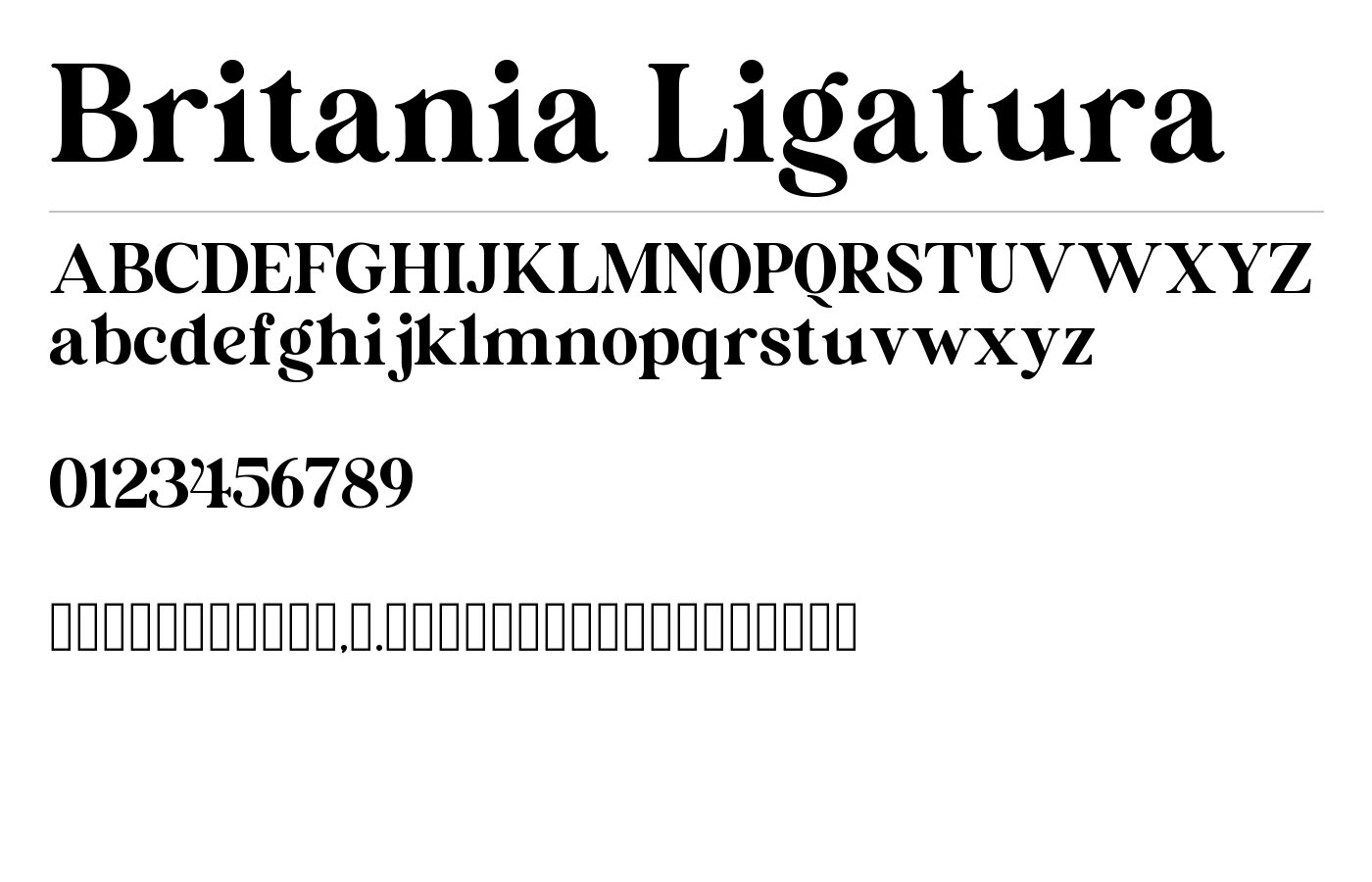
Britania Ligatura is a bold serif font with a classic and elegant feel, featuring strong contrasts between thick and thin strokes and distinctive bracketed serifs. Its traditional letterforms, including double-story a and g, along with unique ligature details, give it a refined yet robust character ideal for sophisticated branding, editorial headlines, and luxury packaging. This font works best in designs that seek to convey timeless elegance and authority with a touch of vintage charm.
Britania Ligatura Font